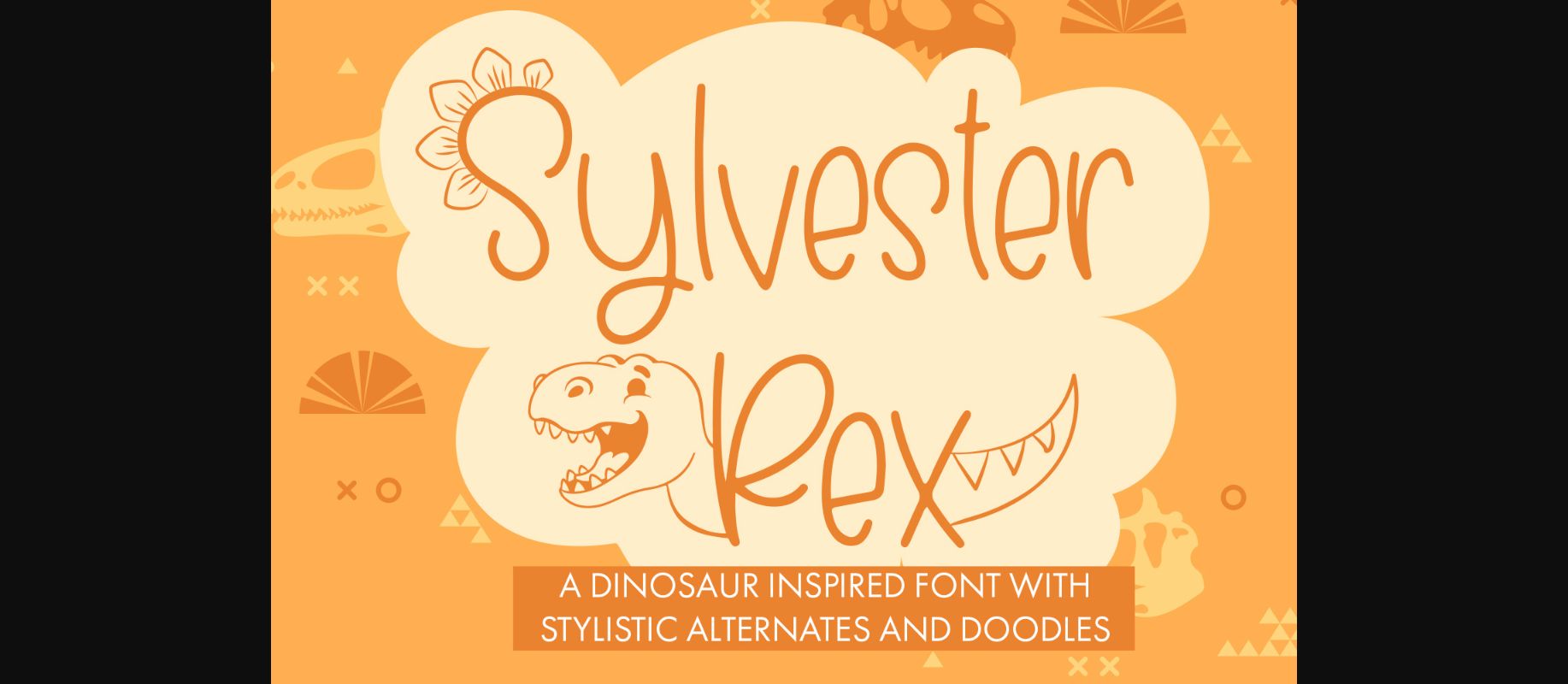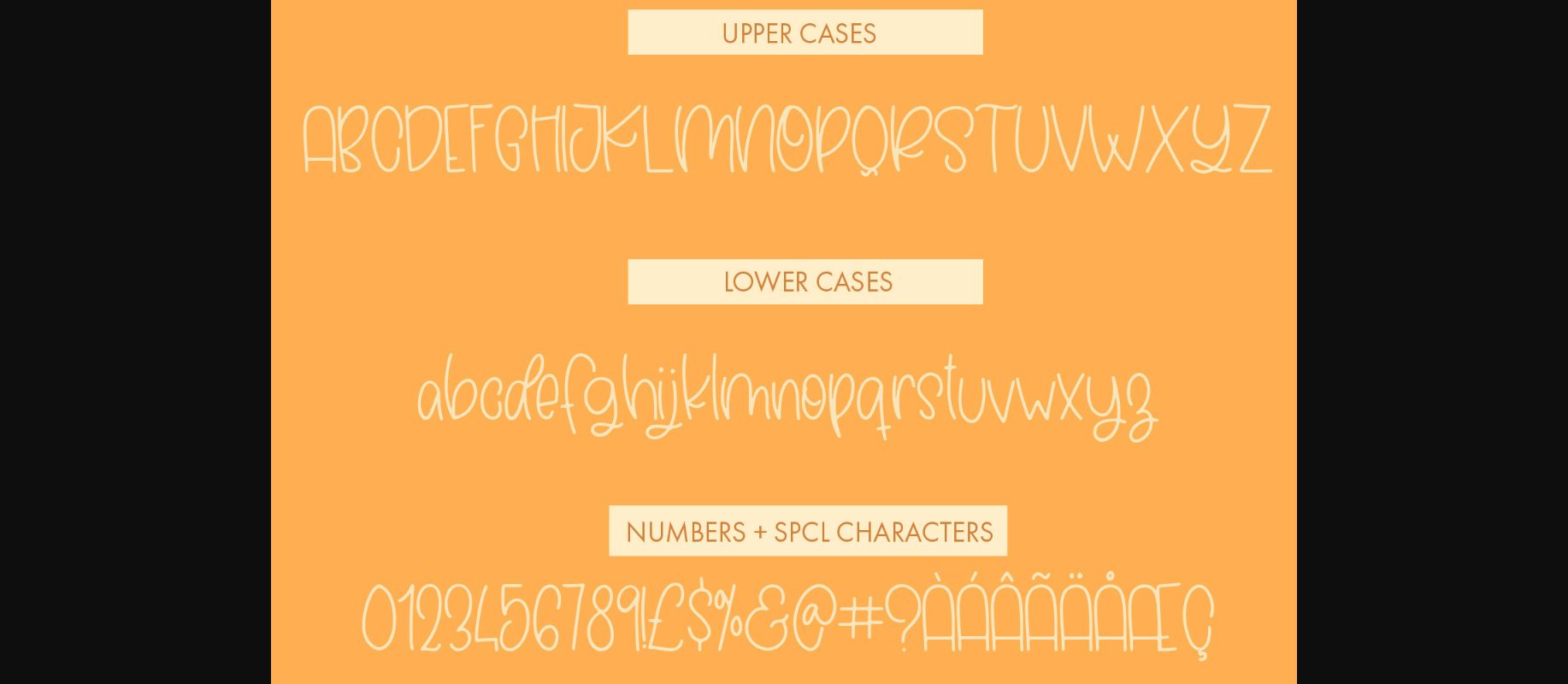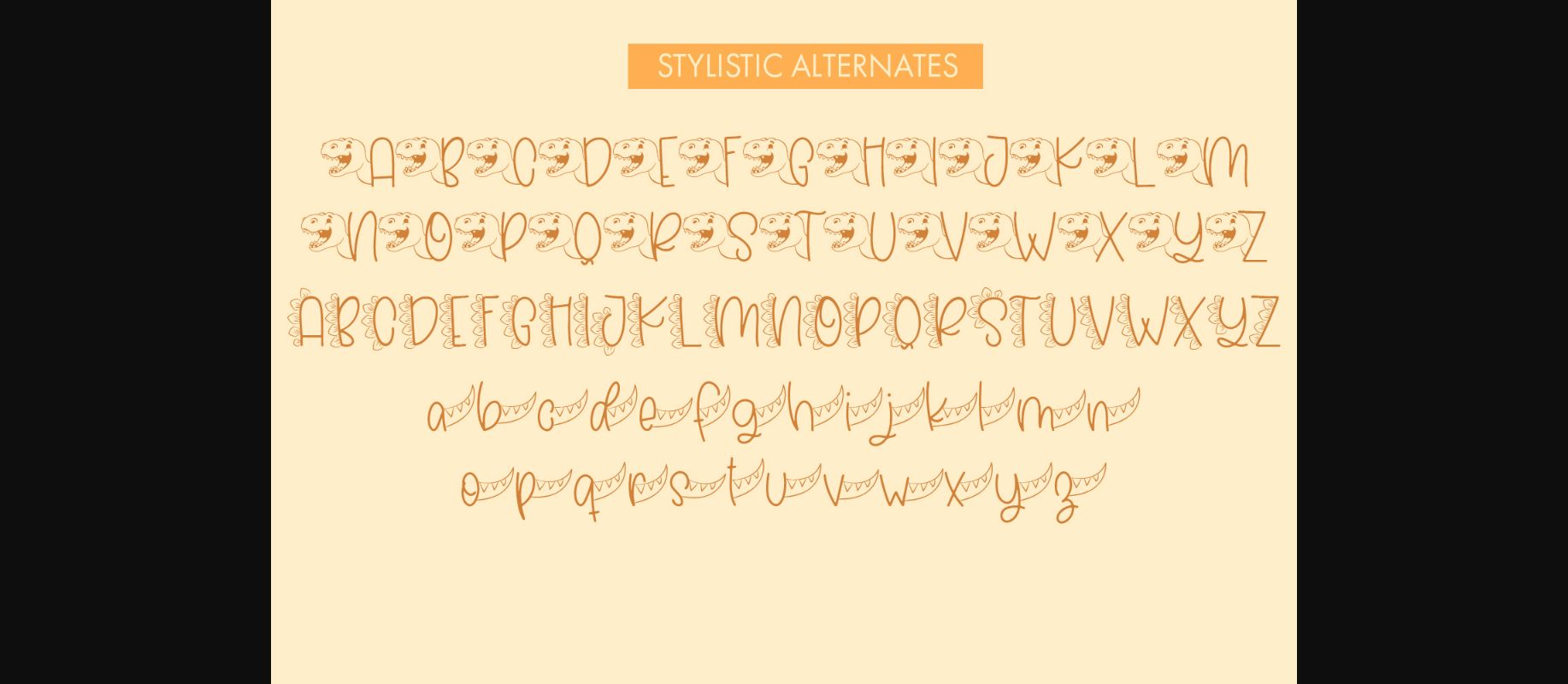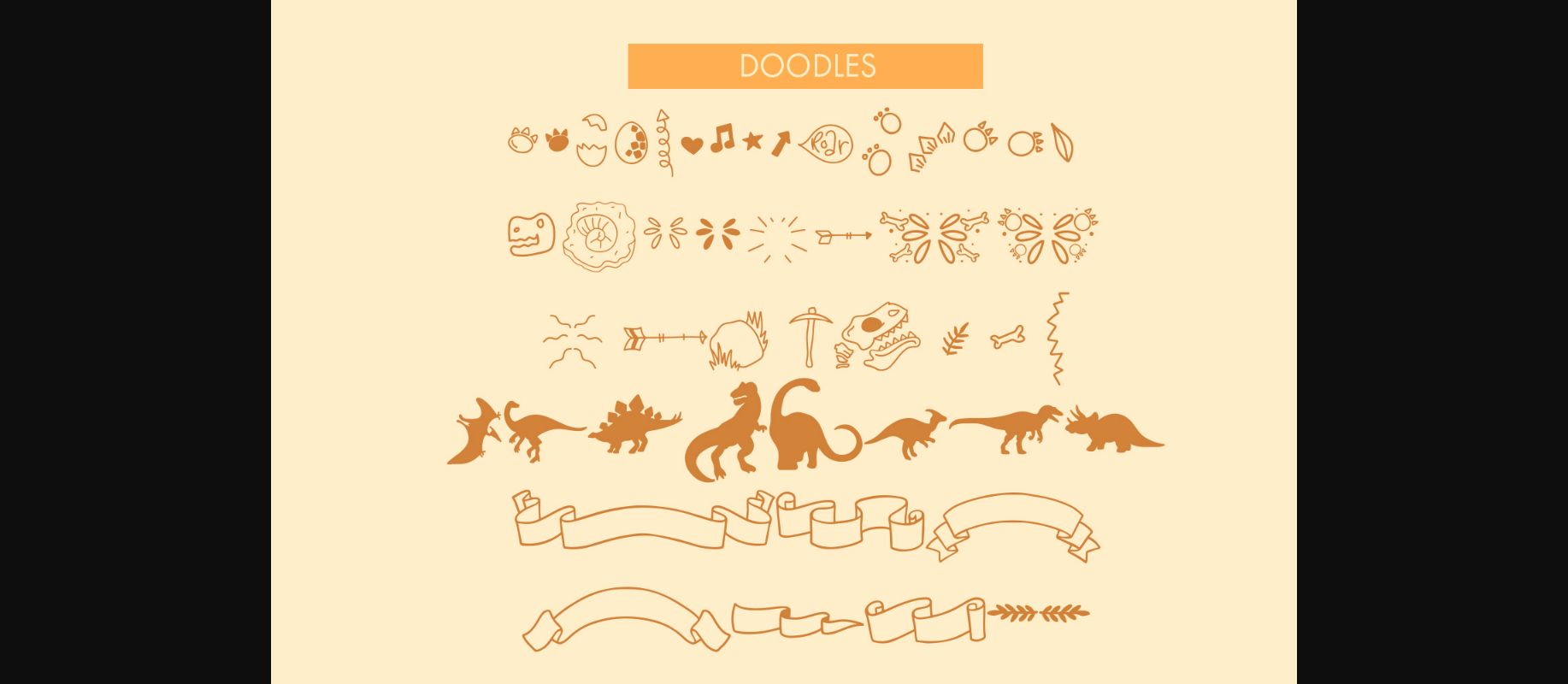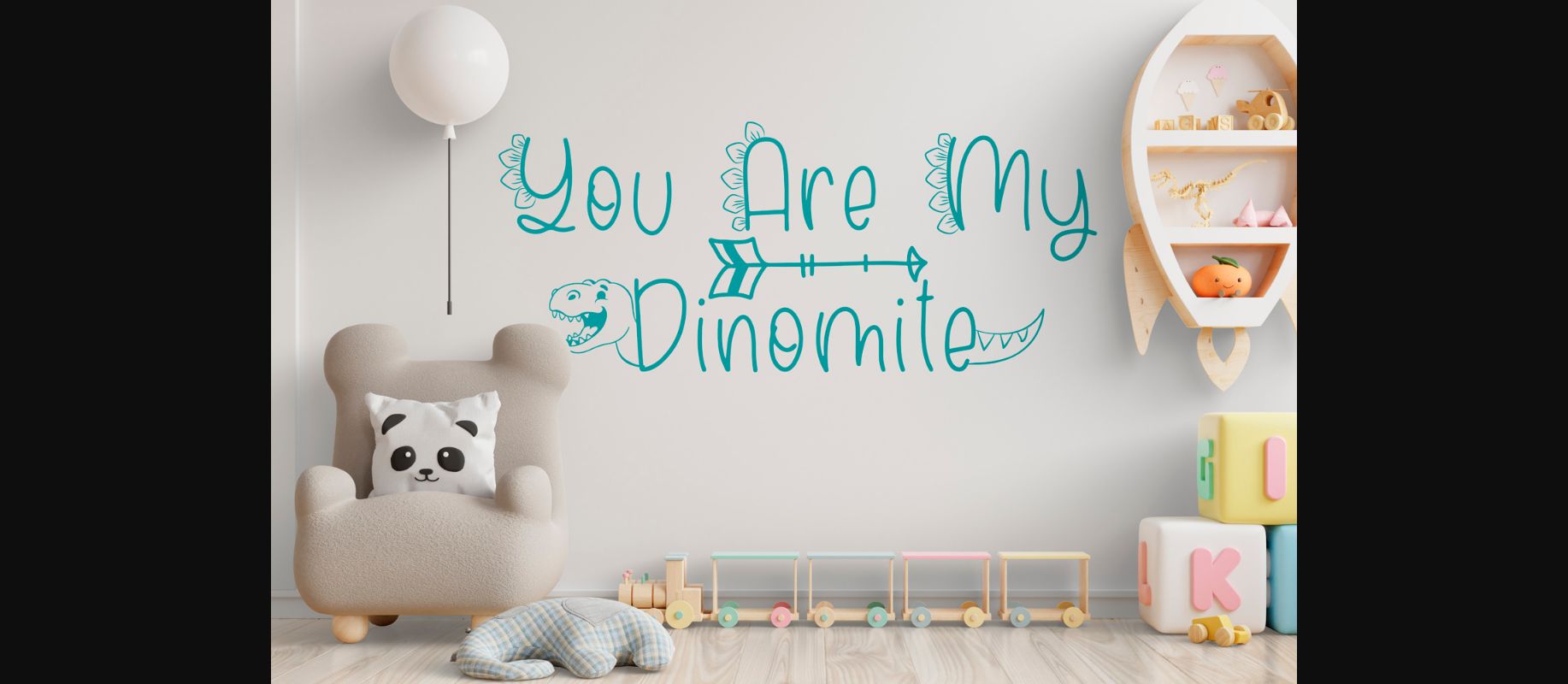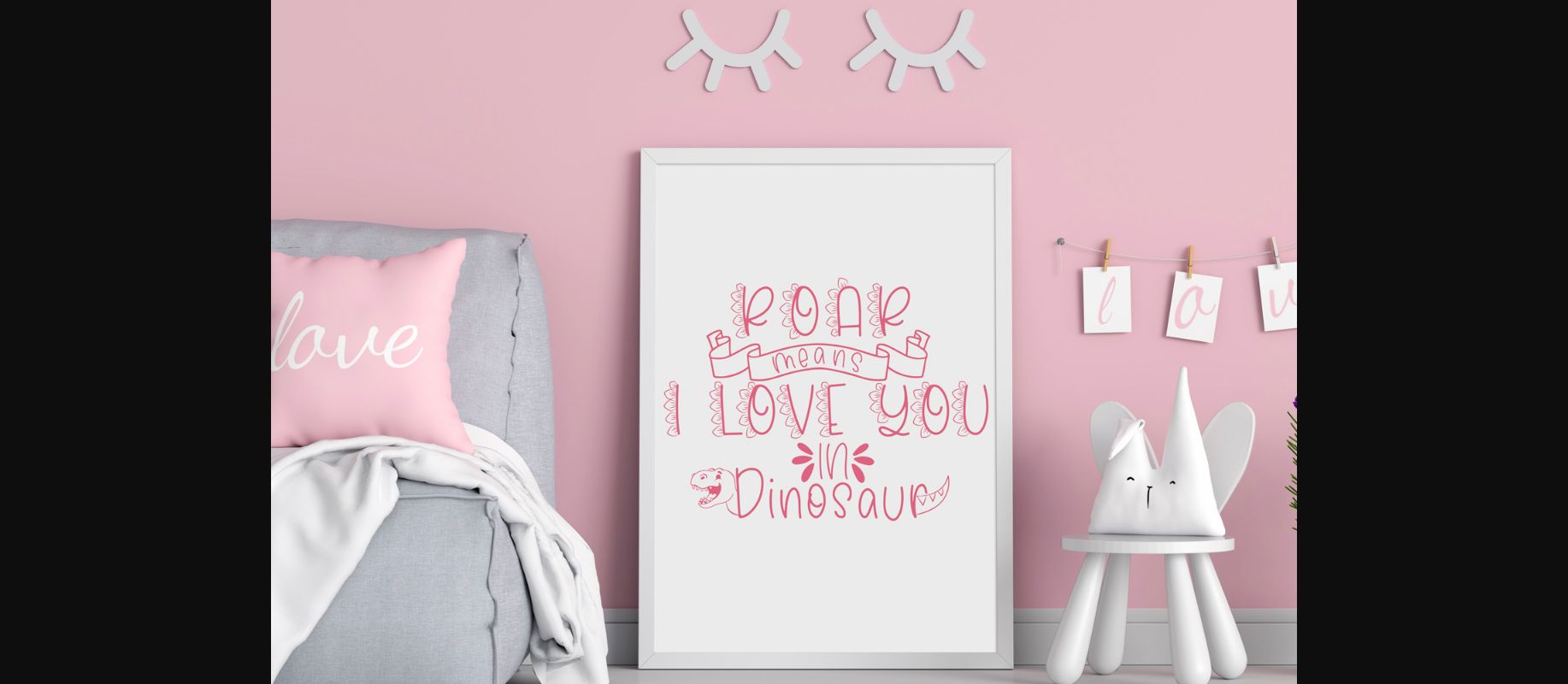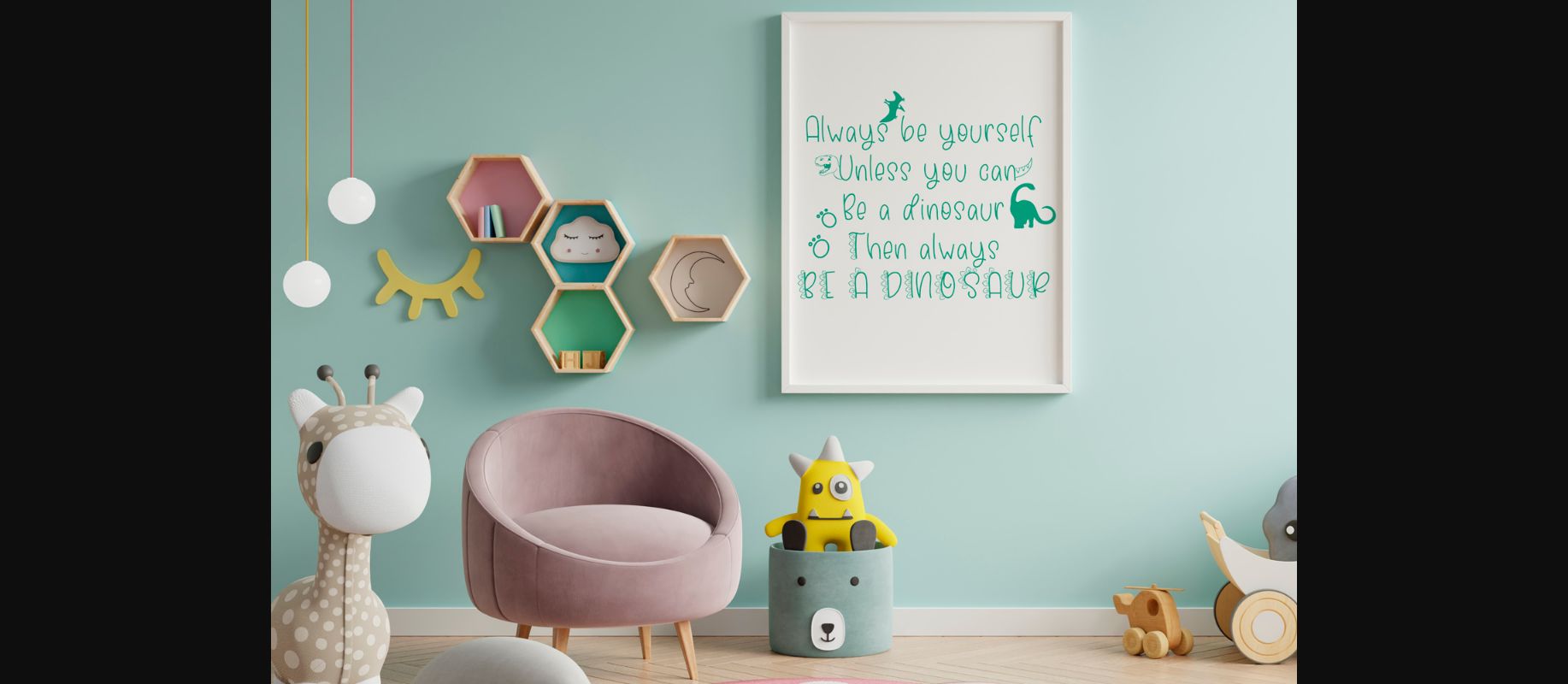
Sylvester Rex Font
About Sylvester Rex Font
Sylvester Rex is a duo font, dingbats and decorative. Incredibly cute and original, this font will be a hit to each of the children designs that you wish to develop.